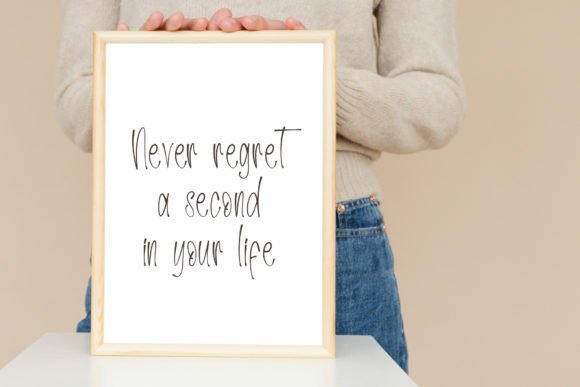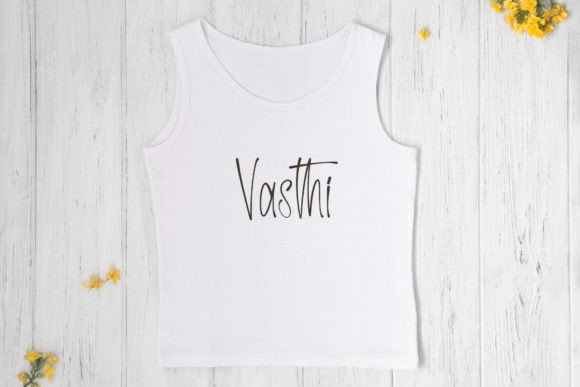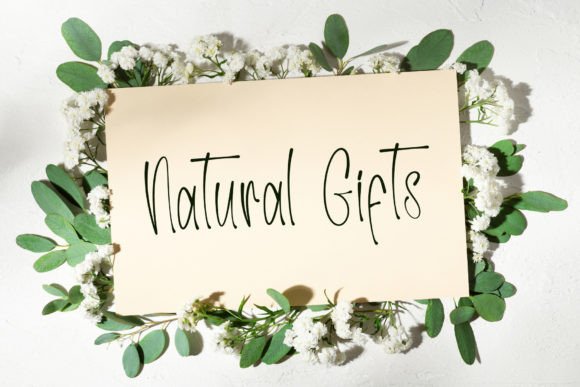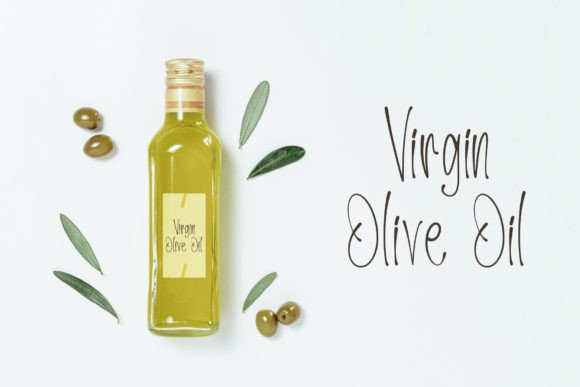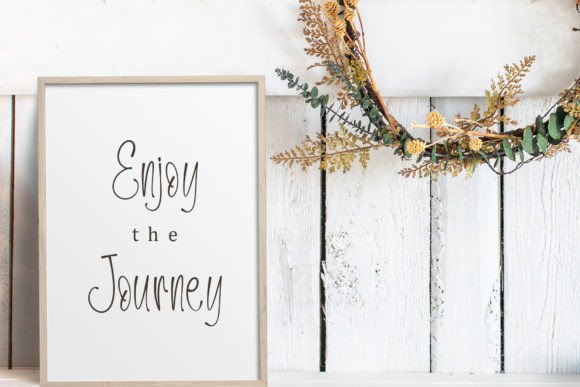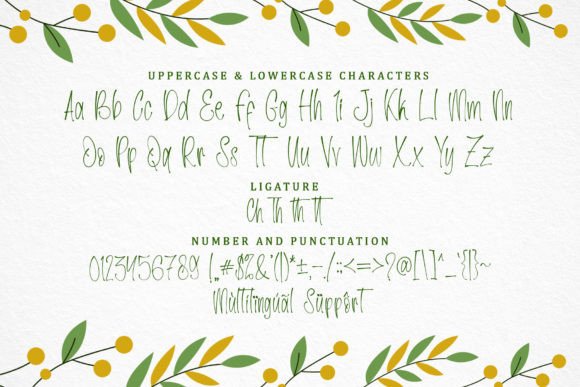
Introducing Cheerful Spring Font: Elevate Your Designs with Elegance and Sophistication
Are you looking for a font that can add a touch of luxury and refinement to your design projects? Look no further than Cheerful Spring Font, a stunning script font that exudes elegance and sophistication. With its flowing strokes, delicate curves, and stylish embellishments, this font is perfect for high-end design projects that require a level of refinement and poise.
The Characteristics of Cheerful Spring Font
Cheerful Spring Font is a script font that boasts a range of characteristics that make it ideal for upscale design applications. Its flowing strokes and delicate curves lend a graceful touch to any text, while its stylish embellishments add a touch of flair. The font’s elegant and refined aesthetic makes it perfect for use in branding, invitations, and other high-end design projects.
What Makes Cheerful Spring Font Stand Out?
So, what sets Cheerful Spring Font apart from other fonts on the market? Here are just a few reasons why this font is a cut above the rest:
- Elegant and Refined Aesthetic: Cheerful Spring Font has an undeniably elegant and refined aesthetic that makes it perfect for high-end design projects.
- Flowing Strokes and Delicate Curves: The font’s flowing strokes and delicate curves lend a graceful touch to any text, making it ideal for use in branding, invitations, and other upscale applications.
- Stylish Embellishments: The font’s stylish embellishments add a touch of flair to any text, making it perfect for designers who want to add a little extra something to their designs.
- PUA Encoded: Cheerful Spring Font is PUA encoded, which means you can access all glyphs and swashes effortlessly. This makes it easy to use and customize the font to suit your design needs.
Uses for Cheerful Spring Font
So, what can you use Cheerful Spring Font for? The possibilities are endless, but here are a few ideas to get you started:
- Branding: Use Cheerful Spring Font to create a luxurious and refined brand identity that will set your business apart from the competition.
- Invitations: This font is perfect for use in invitations, whether you’re planning a wedding, a baby shower, or another special occasion.
- Packaging Design: Add a touch of elegance and sophistication to your packaging design with Cheerful Spring Font.
- Stationery: Use this font to create beautiful and refined stationery, including letterheads, business cards, and more.
Tips for Using Cheerful Spring Font
Here are a few tips for using Cheerful Spring Font in your design projects:
- Use it Sparingly: Because Cheerful Spring Font is so elegant and refined, it’s best to use it sparingly. Use it for headings, titles, or other key elements, and pair it with a simpler font for body text.
- Experiment with Colors: This font looks beautiful in a range of colors, from rich jewel tones to soft pastels. Experiment with different colors to find the perfect look for your design.
- Don’t be Afraid to Get Creative: Cheerful Spring Font is a versatile font that can be used in a range of design applications. Don’t be afraid to get creative and experiment with different design elements, such as swashes and glyphs.
| Font Name | Cheerful Spring Font |
| Author | Sakha Design |